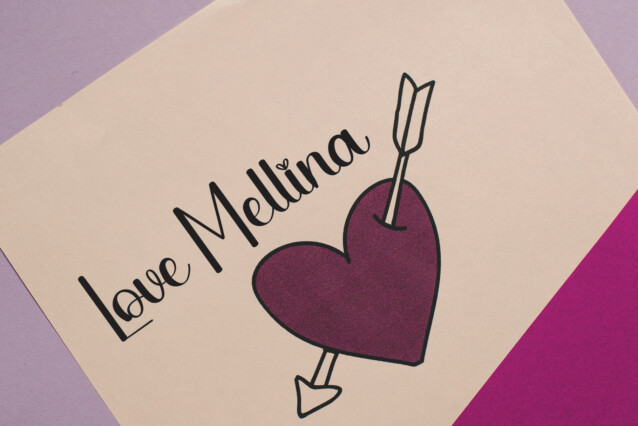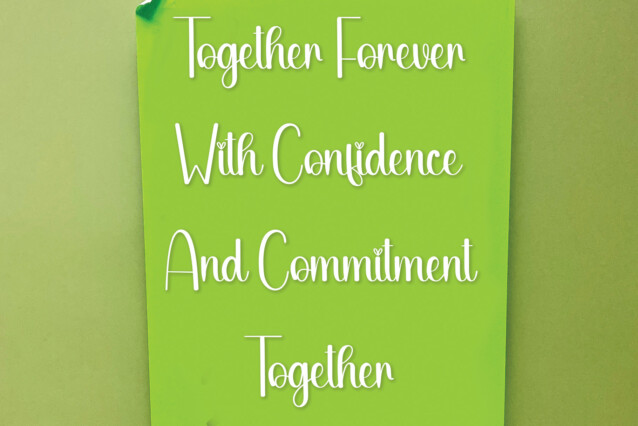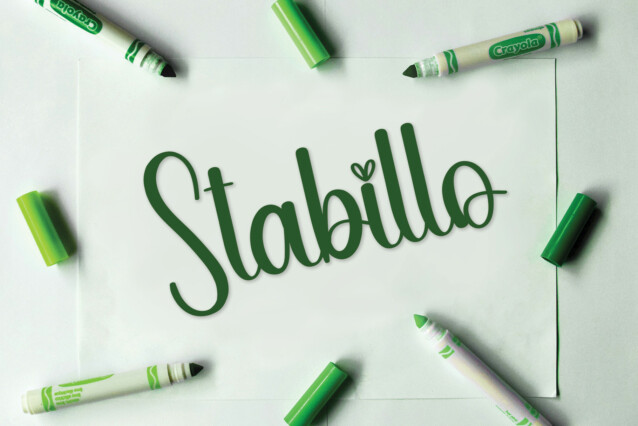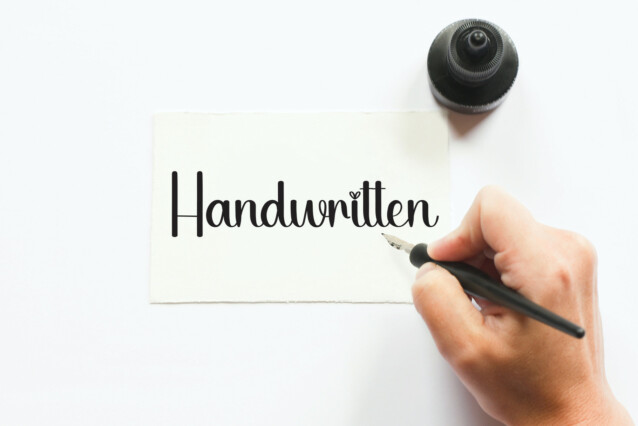
Cupid Script Font
Cupid Script Font is an elegant and beautiful handwritten font. Its latest style letters are perfect for wall displays, wedding invitations, social media post logos, advertisements, product packaging, product designs, labels, photography, watermarks, invitations, stationery, and any project that requires taste handwriting.